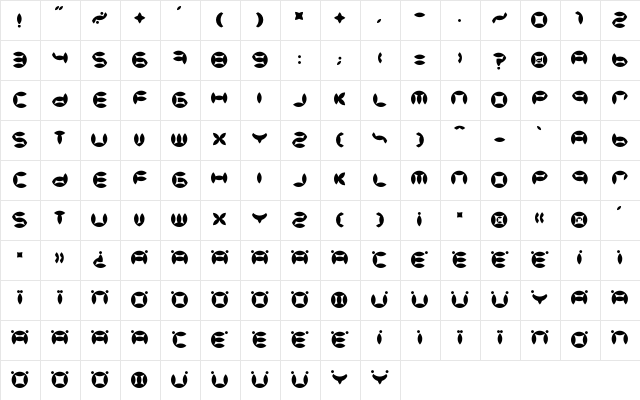
BD Beans Regular
| Foundry | Lopetz05: Buro Destruct |
| Designer | Lopetz |
Design Context for BD Beans Typeface
BD Beans is a composed and adaptable typeface that performs quietly and consistently across a wide range of design contexts. Its bold stroke weight gives it real presence on the page.